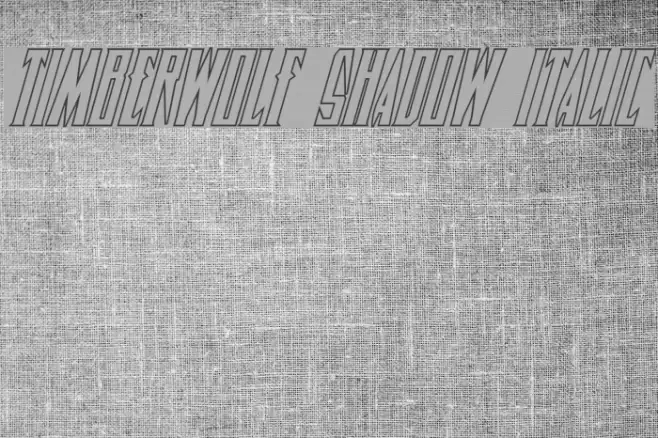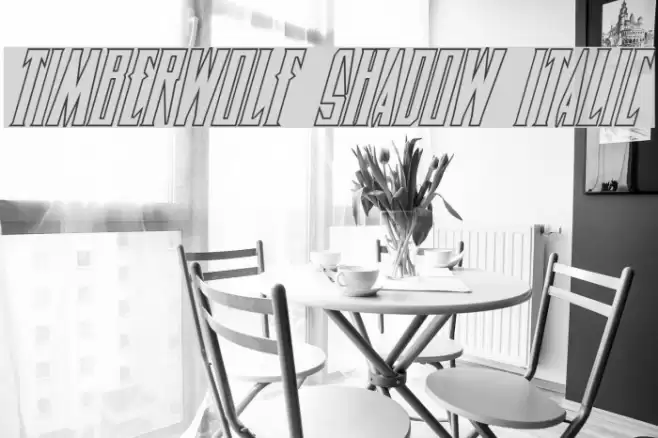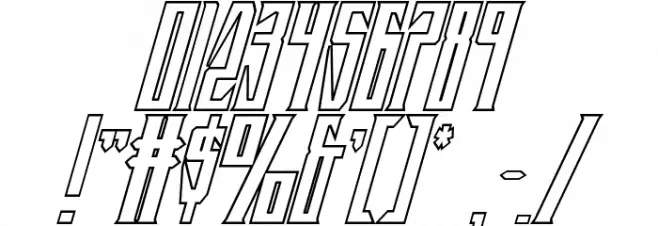
Timberwolf Shadow Italic
This font features a bold, italicized style with a distinct shadow effect that gives it a three-dimensional appearance. The characters are elongated and angular, creating a dynamic and energetic look. The uppercase and lowercase letters maintain a consistent slant, enhancing the italicized effect. The numbers and special characters follow the same stylistic approach, ensuring uniformity across all glyphs. The font's design is striking and modern, making it suitable for attention-grabbing headlines and titles. Its unique shadowing adds depth, making it stand out in various design contexts.
Bold, italicized font with a shadow effect and angular design.
- Proposed Projects: Ideal for posters, logos, and branding materials that require a bold and modern aesthetic.
- Width: Condensed
- Contrast: High